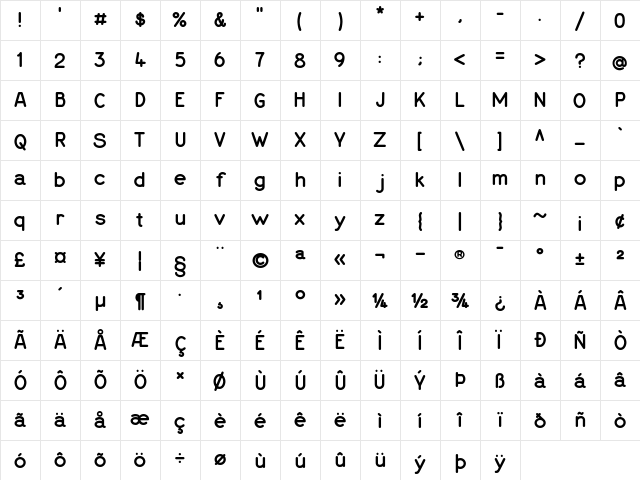
Espresso Dolce is a composed and adaptable typeface that performs quietly and consistently across a wide range of design contexts.
Pro Tip: Use Espresso Dolce in both headline and body roles to test its range before committing to a single application.